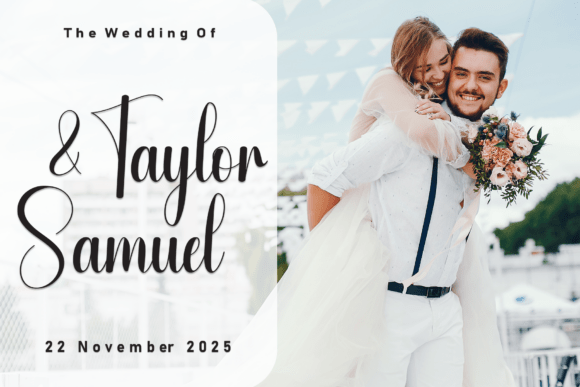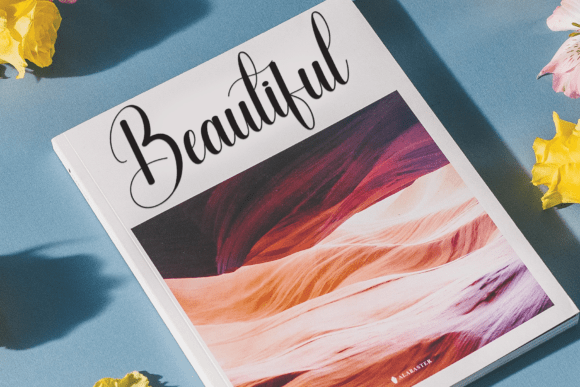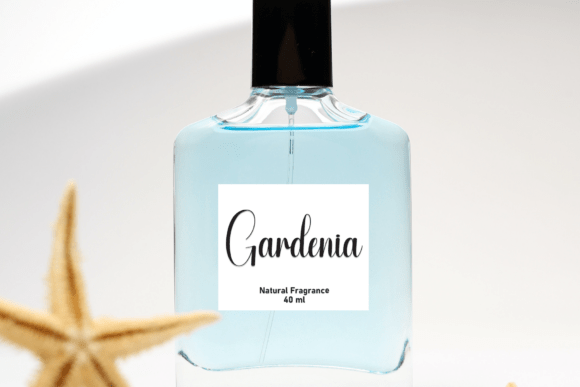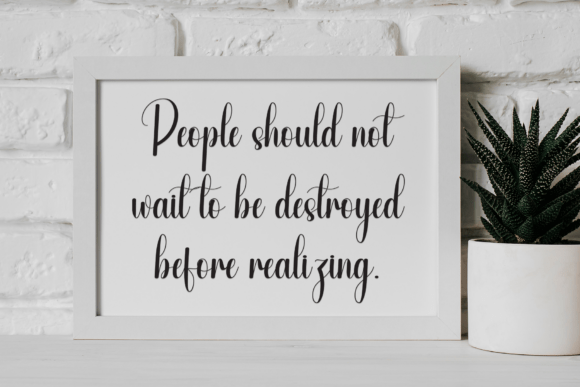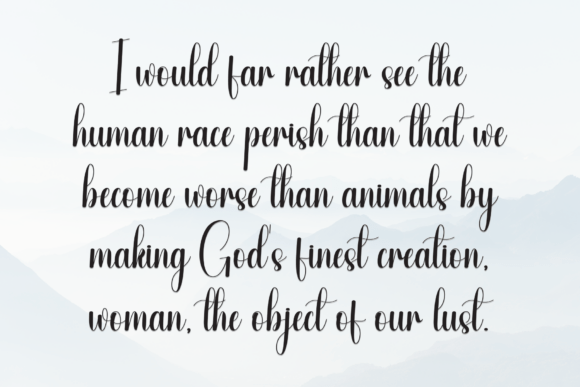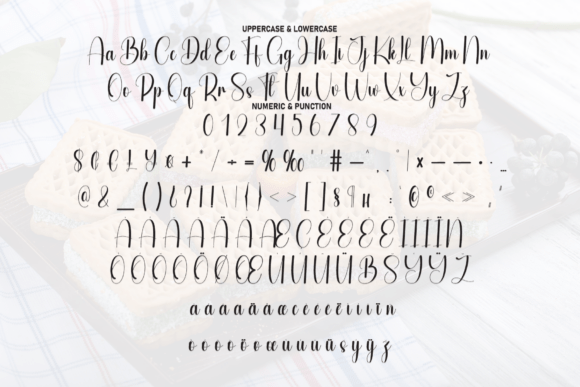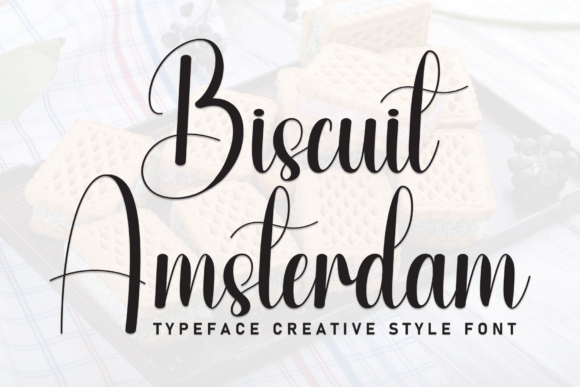
Discover the Charm of Biscuit Amsterdam Font
Have you ever been in the middle of a design project, and suddenly, you’re stuck on finding the perfect font? I recall a recent experience while working on a wedding invitation project. My client wanted a font that was both playful and elegant, but I just couldn’t seem to find the right fit. That’s when I stumbled upon the Biscuit Amsterdam Font, and it completely transformed my design.
A Personal Review of Biscuit Amsterdam Font
I’m excited to share my honest review of this charming handwritten display font. Here’s what I love about it:
• ✨ Unique and playful character set that’s perfect for creative designs
• ✅ Delightful blend of charm and friendliness that adds a touch of sweetness to any project
• 💕 Perfect for designs that require a personal and whimsical touch, such as wedding invites, handmade cards, and more
While Biscuit Amsterdam Font is a wonderful addition to any design project, there are a few small quirks to consider:
• 🤔 Limited use in formal or professional designs, as it may come across as too playful
• ⚠️ May not be suitable for body text, as it’s best used as a display font
3. Experiment with OpenType features, such as glyphs and stylistic alternates, to add more personality to your design
The Story Behind Biscuit Amsterdam Font
While the true story behind Biscuit Amsterdam Font remains a mystery, it’s easy to imagine that it was created by a designer who loves baking and wants to infuse their designs with a touch of sweetness. Perhaps the designer, a self-proclaimed baking enthusiast, wanted to create a font that would make people smile and evoke feelings of warmth and comfort.
What type of designs is Biscuit Amsterdam Font best suited for? Biscuit Amsterdam Font is perfect for creative designs that require a personal and whimsical touch, such as wedding invites, handmade cards, and more.
Can I use Biscuit Amsterdam Font for body text? No, Biscuit Amsterdam Font is best used as a display font and may not be suitable for body text.
Is Biscuit Amsterdam Font available in different styles or weights? While Biscuit Amsterdam Font may not have multiple styles or weights, it does offer OpenType features, glyphs, and stylistic alternates to add more personality to your design.